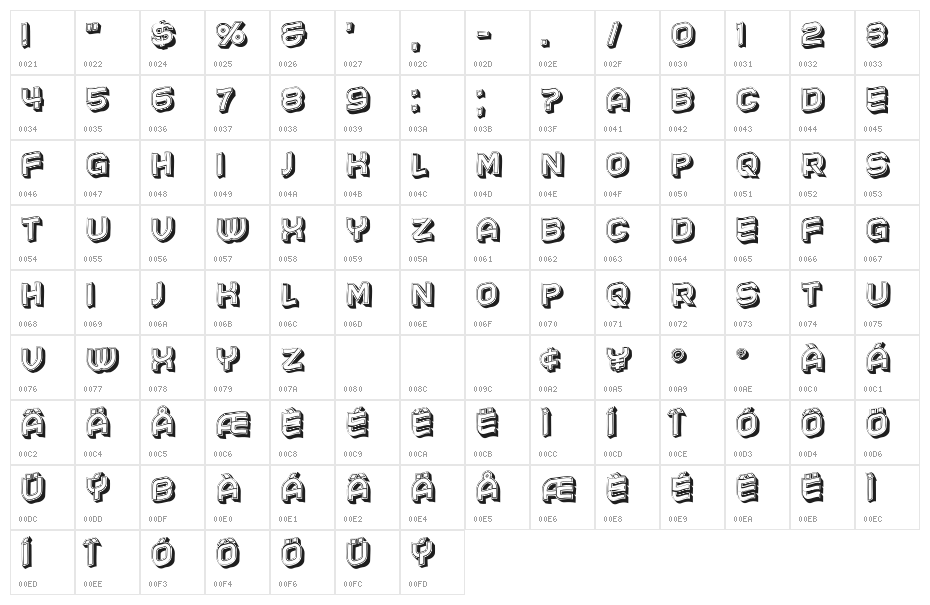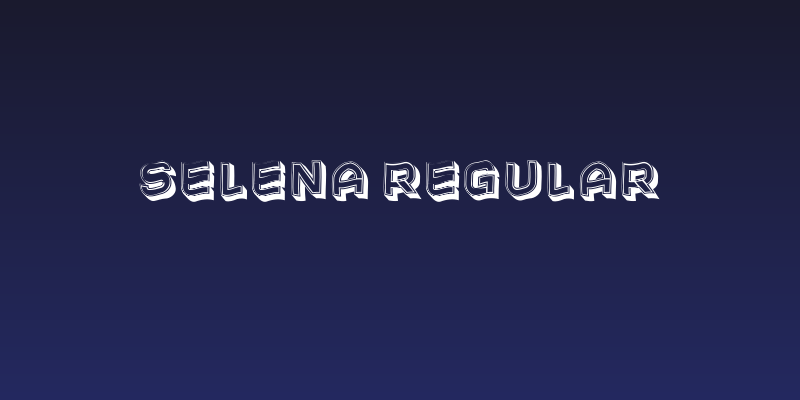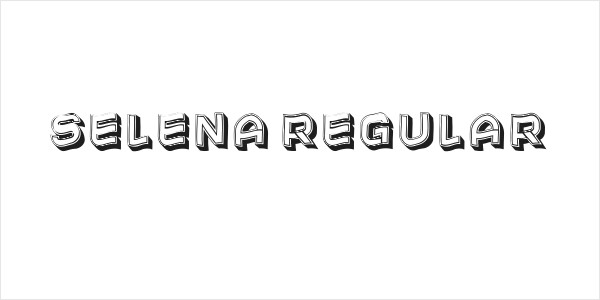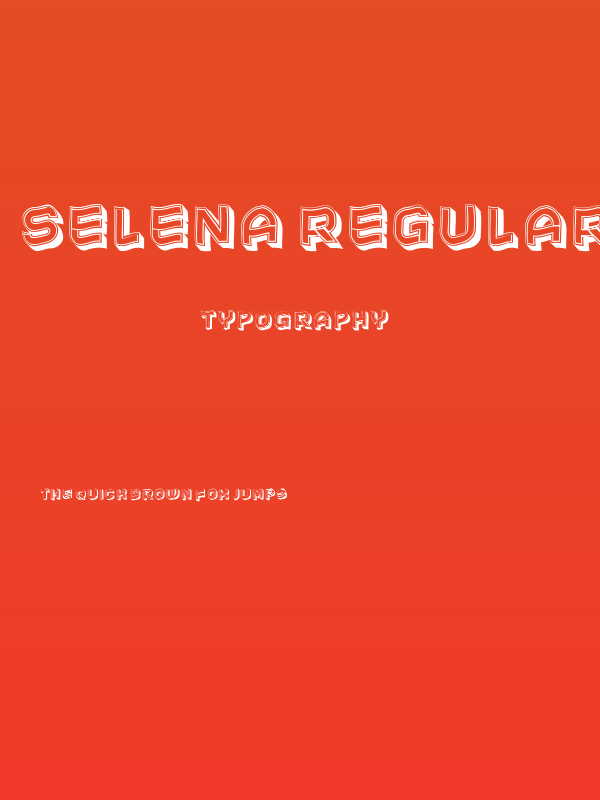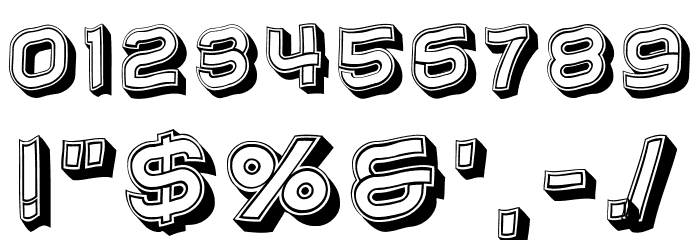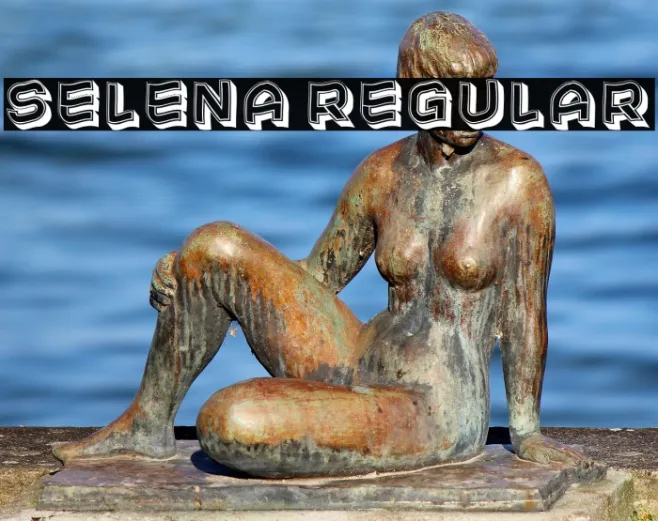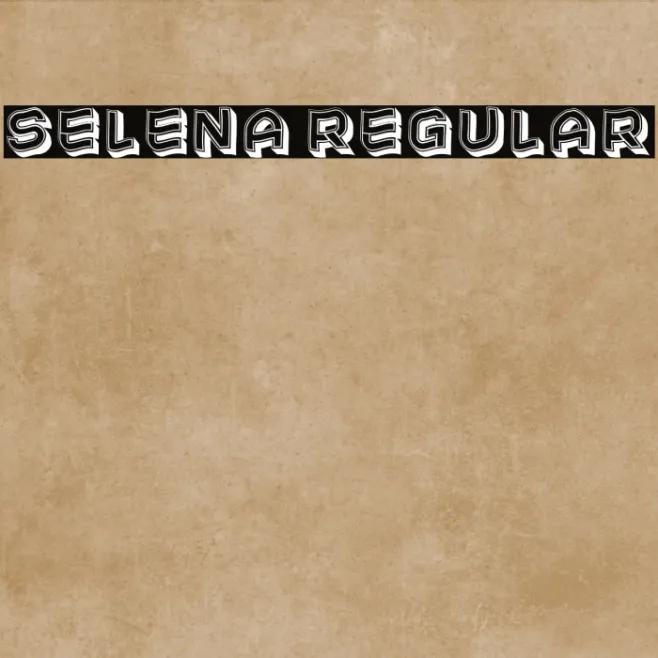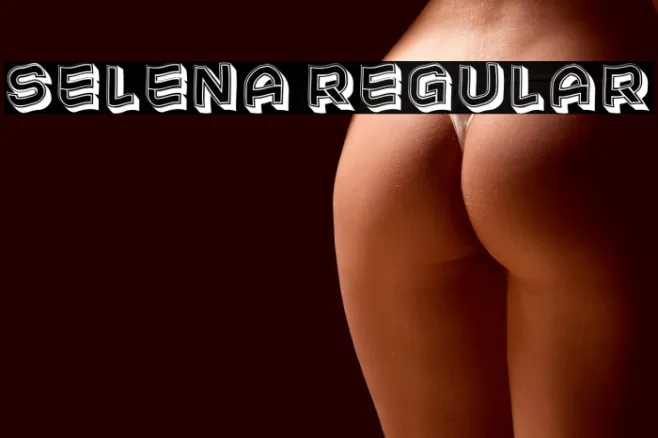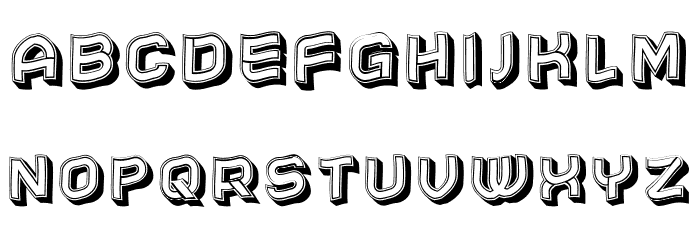
Selena Regular Font
Selena Regular Description
This font features a bold, three-dimensional design with a playful and dynamic appearance. The characters are outlined with a thick black shadow, giving them a striking and impactful look. The letters are uppercase with a consistent height, and the numbers follow the same bold style. The special characters are designed to match the overall aesthetic, making them suitable for attention-grabbing designs. The font's unique style is both modern and retro, offering versatility for various creative projects.
| Overall Style | Modern, Retro |
| Proposed Projects | Ideal for posters, logos, headlines, and any design requiring a bold, eye-catching typeface. |